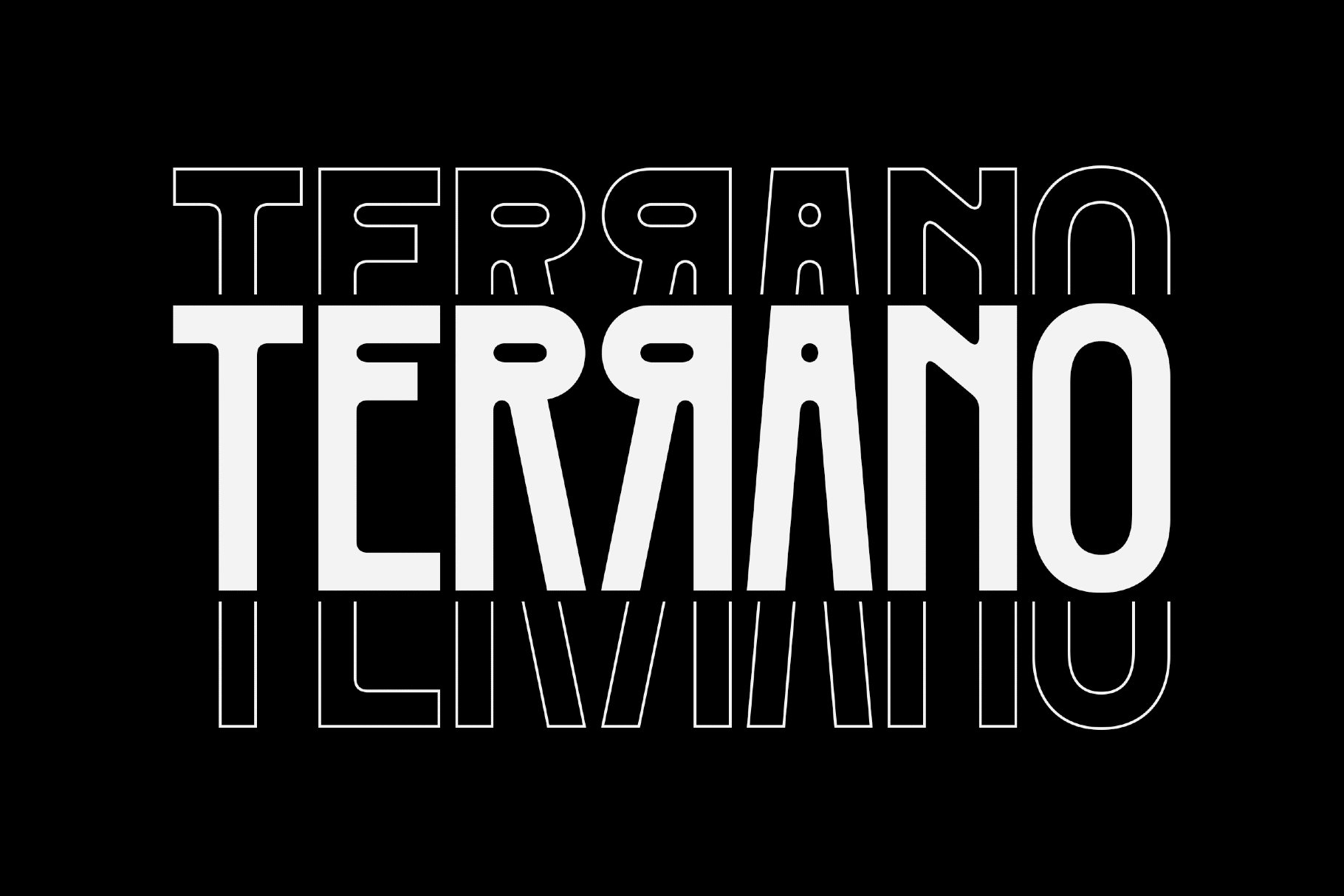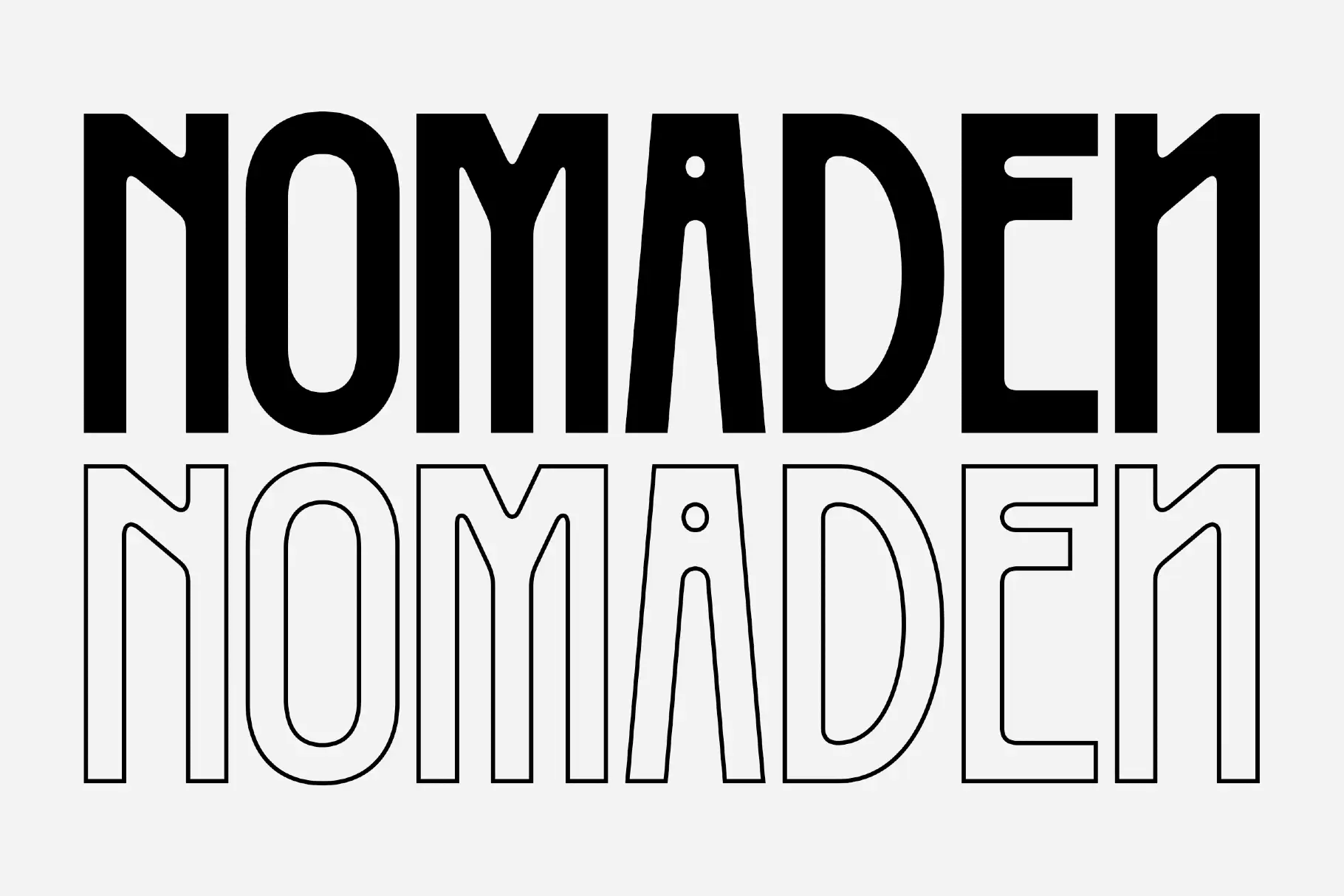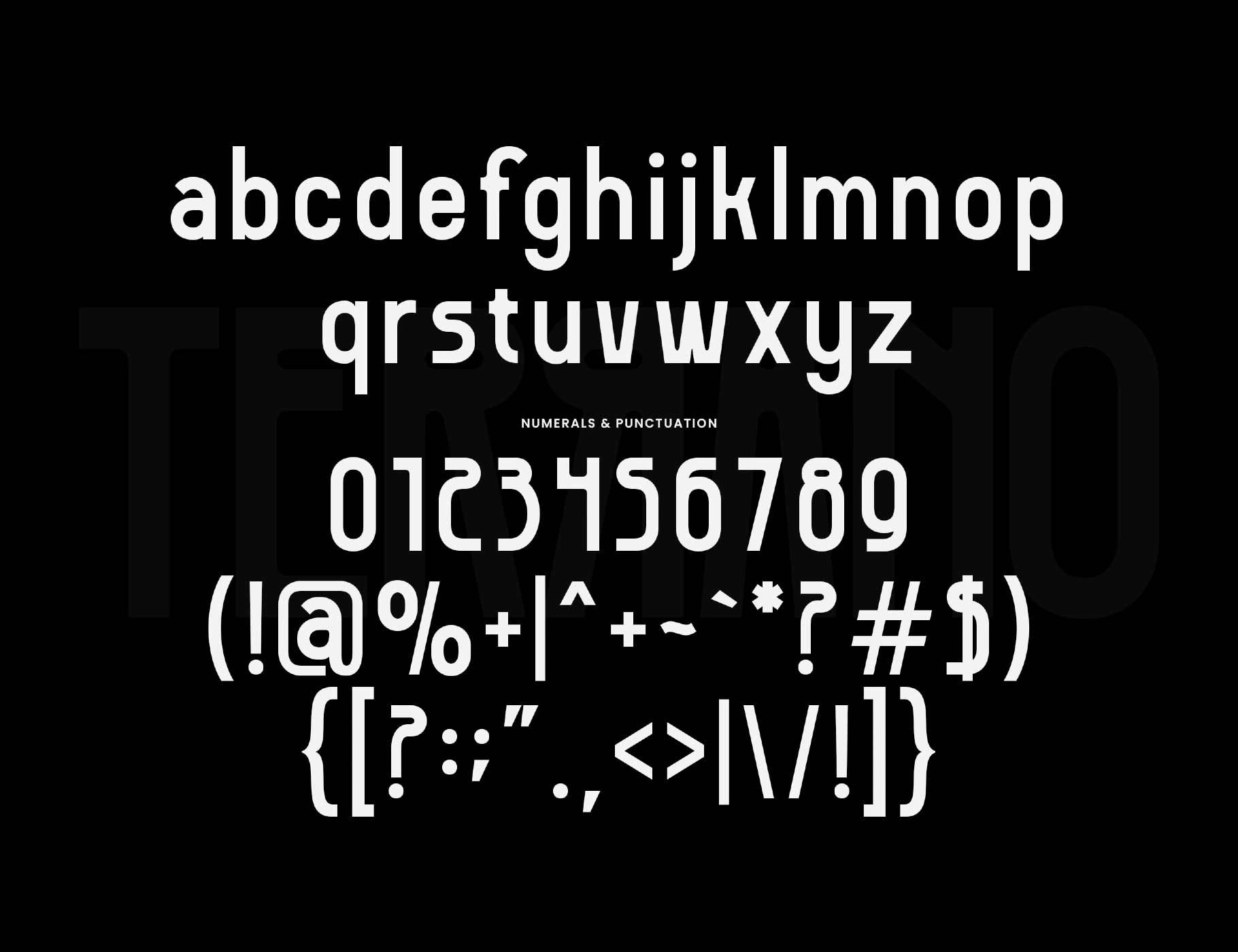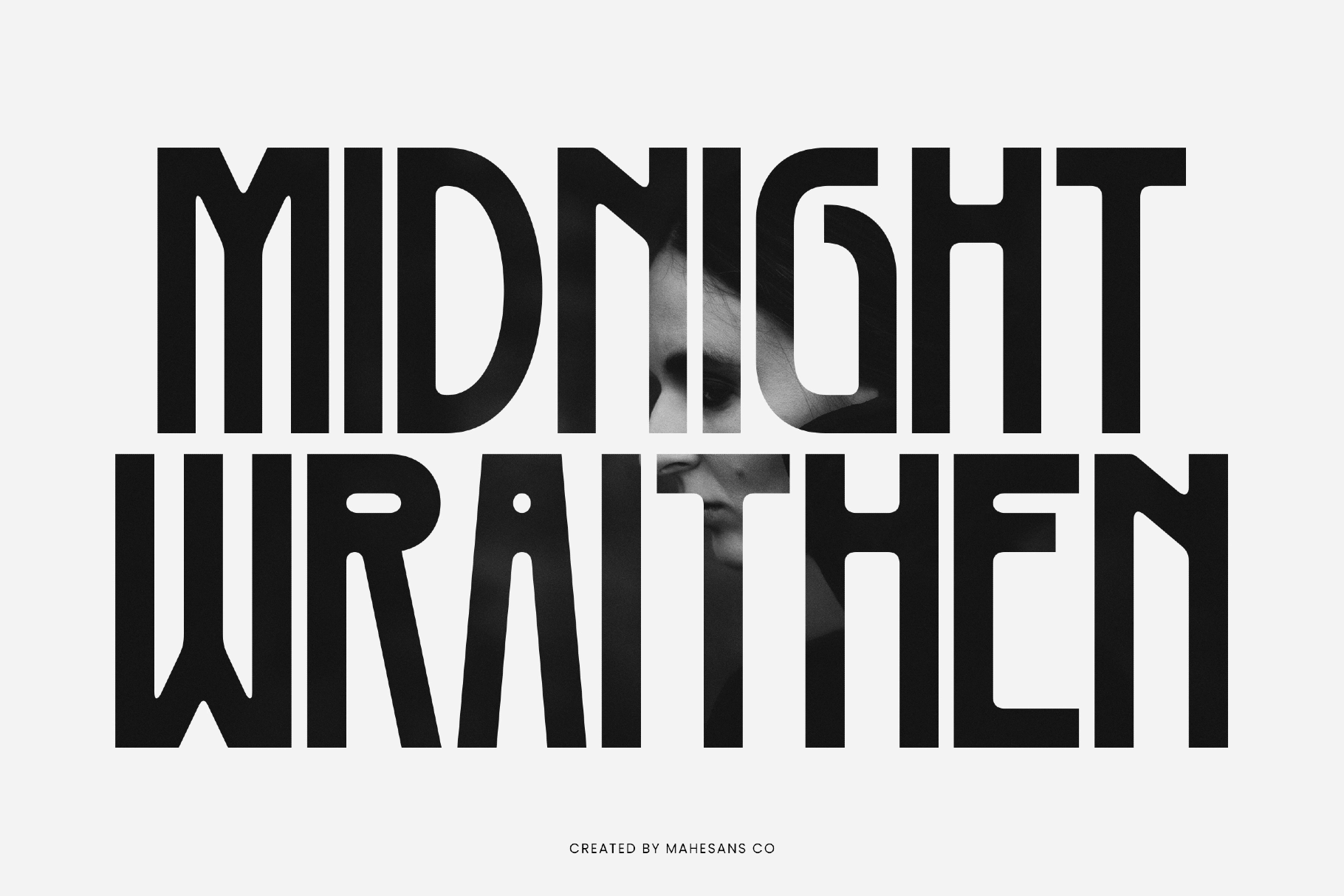
Terrano - Display Sans Serif Font
Terrano splits its personality down the middle — elongated, asymmetric caps built from cut diagonals and uneven bowls sit above a clean, rounded lowercase that reads more like a working geometric sans. A stylistic alternate set swaps select letters for even sharper variants, and fi/fl ligatures keep the display weight from crowding at tight tracking.
Use it for posters, album covers, esports and gaming logos, UI headlines, and any identity built around a hard, future-forward edge — set a headline in caps for the full effect, then drop to lowercase for supporting text that still reads clean at small sizes.
• 1 style: Regular;
• uppercase & lowercase;
• numerals & punctuation;
• ligatures, stylistic alternate set;